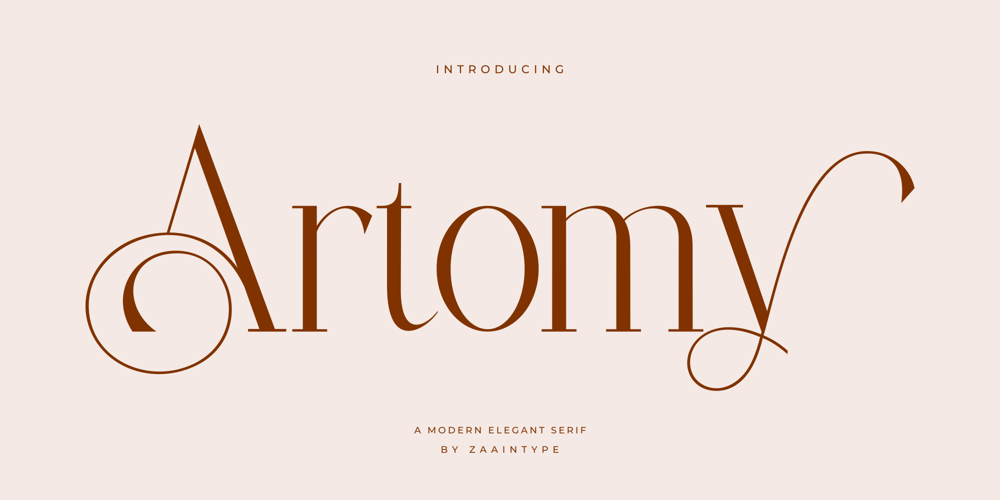
Artomy Font Family was designed by Ju Naen and published by Zaain Type. Artomy contains 1 styles and family package options. Artomy is a modern display font with a bold, striking character. It features a clean, geometric design with sharp angles and thick lines, delivering a contemporary and futuristic vibe. Each character in Artomy is crafted with a slightly asymmetrical form, emphasizing a unique aesthetic perfect for logos, posters, or any design requiring a standout visual element.